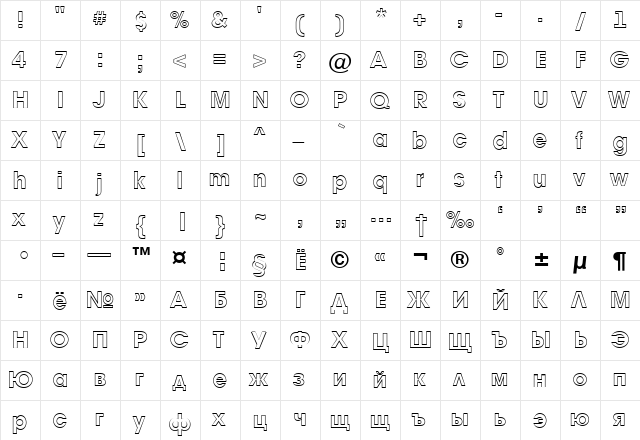
a_AvanteOtl Heavy
Design Context for a_AvanteOtl Typeface
a_AvanteOtl is a composed and adaptable typeface that performs quietly and consistently across a wide range of design contexts.